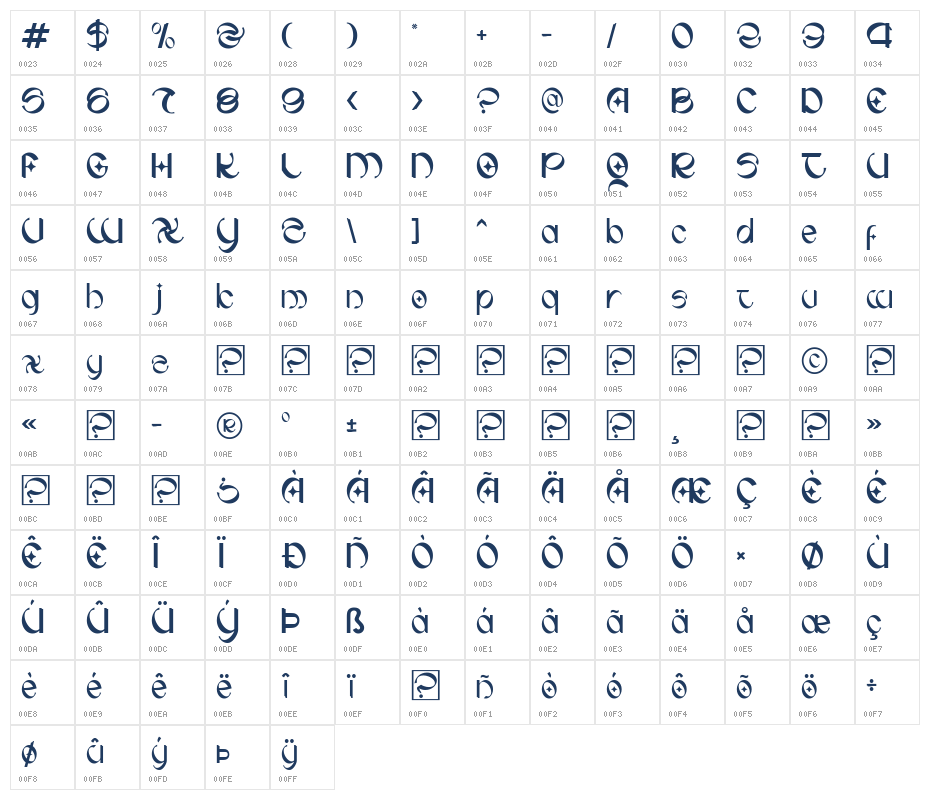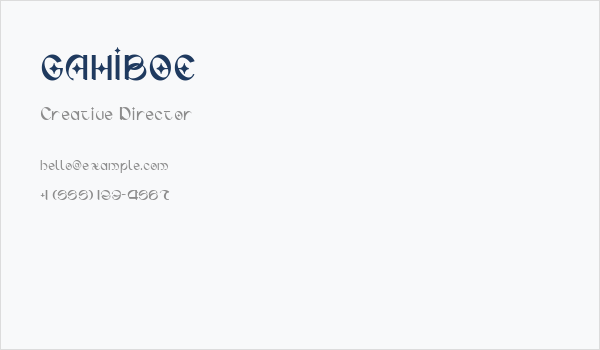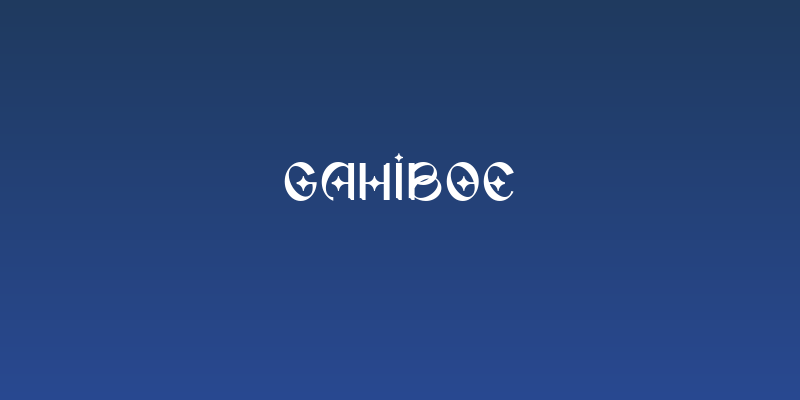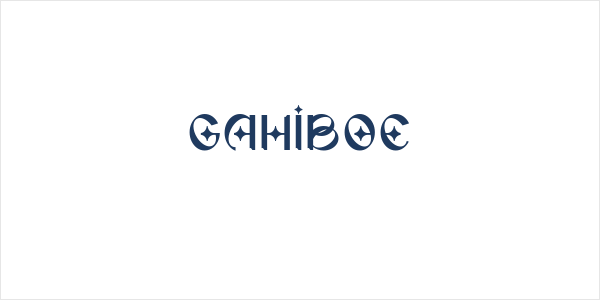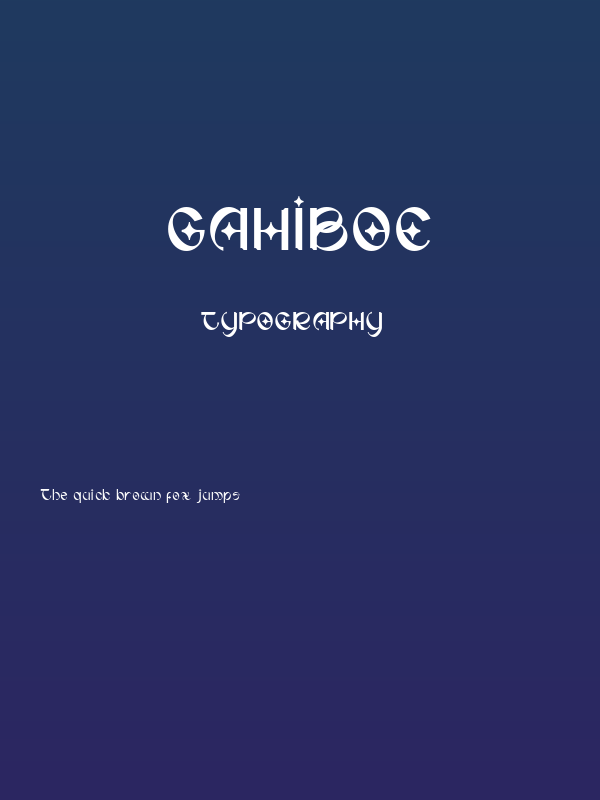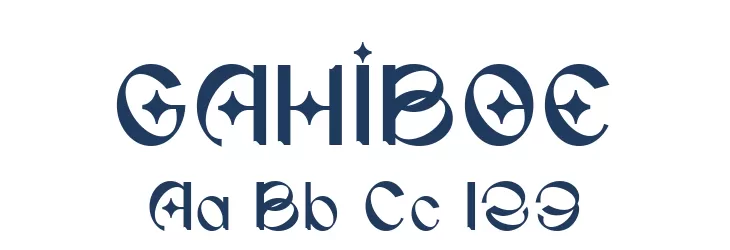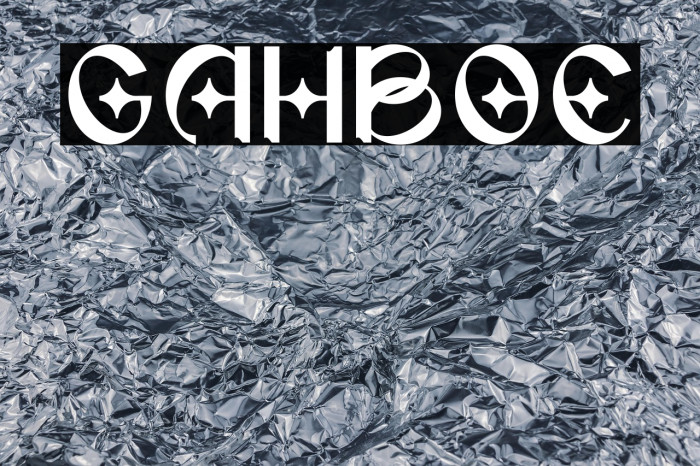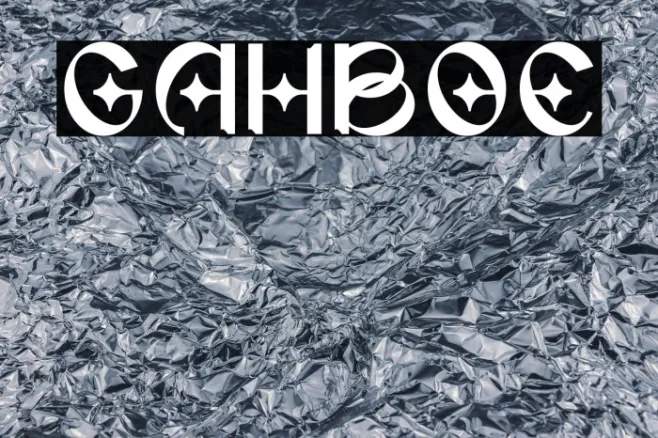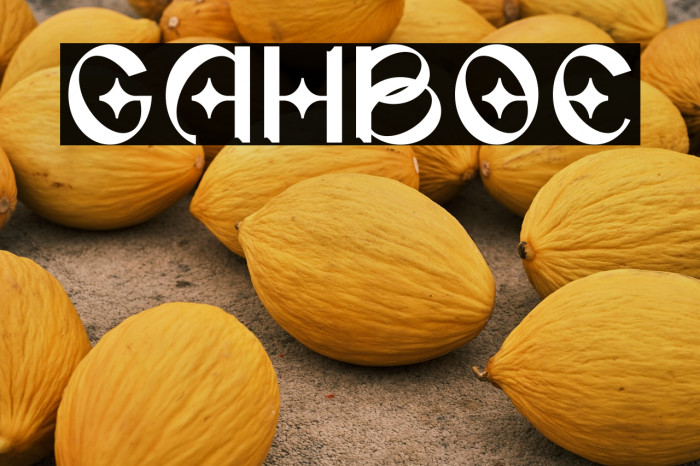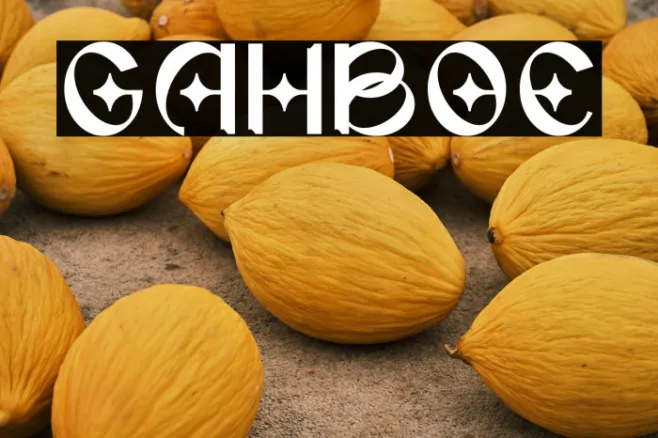
GAHIBOE Font
GAHIBOE Description
Decorative, stylized font with a fantasy or mystical theme, featuring unique star-shaped accents on some characters and a flowing, artistic design.
| Overall Style | Fantasy, Artistic, Decorative |
| Use Case | Headlines, Logos, Titles, Posters |